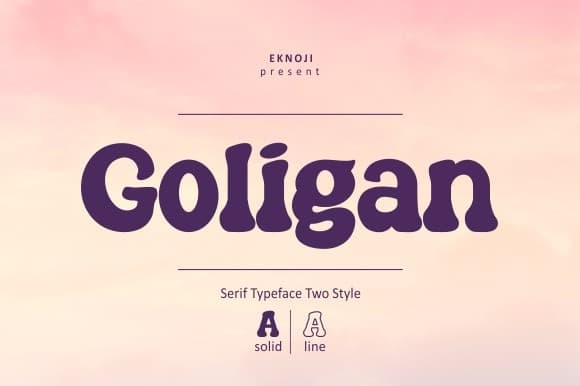
Goligan Font
Goligan Display Font is a new serif display typeface created by Eknoji Studio with masculine characteristics suitable for old or modern styles, this font can be combined with a sans-serif font suitable for poster fonts, logos, headlines, titles on book covers, films, content and others.